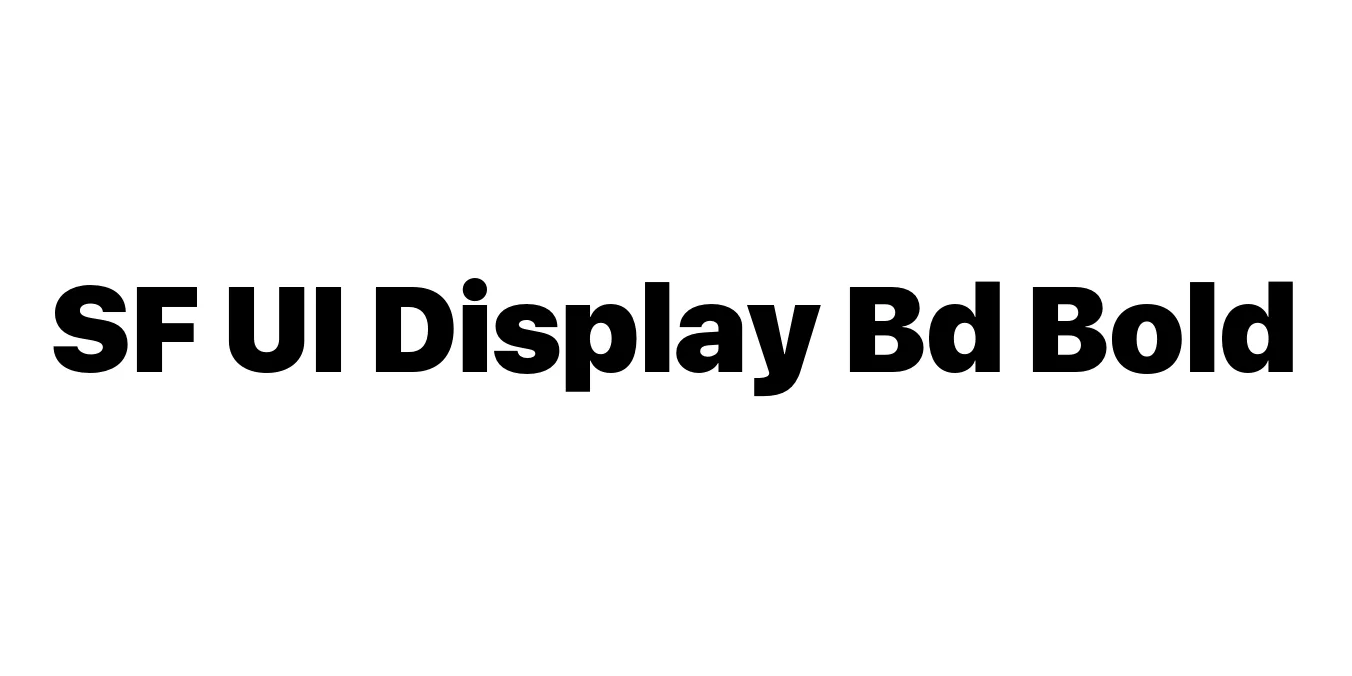
SF UI Display Bd Bold
Designed by Apple Inc.
SF UI Display Bold is a core component of the San Francisco font family, a neo-grotesque sans-serif typeface designed by Apple Inc. specifically for digital screens. Originally introduced to provide high legibility on the Apple Watch, it eventually replaced Helvetica Neue as the standard system font for iOS and macOS. The 'Display' version is meticulously crafted for use at sizes 20 points or larger, featuring tighter letter spacing and refined proportions that lend a modern, sleek aesthetic to high-resolution Retina displays.
The Bold weight of this typeface is particularly effective for creating visual hierarchy within user interfaces. It maintains a high x-height and open counters, ensuring that text remains crisp and readable even in dense information environments. As a cornerstone of contemporary digital design, SF UI Display Bold is synonymous with the clean, minimalist branding and functional elegance that defines the modern Apple ecosystem, making it a favorite for UI/UX professionals globally.
SF UI Display Bd Bold Best Uses
Primary choice for mobile app headers and navigation bars to ensure maximum clarity.
Perfect for striking hero sections and large-scale titles on professional websites.
Excellent for tech-focused marketing materials and sleek corporate identities.
Ideal for developers creating high-fidelity prototypes for iOS-integrated applications.